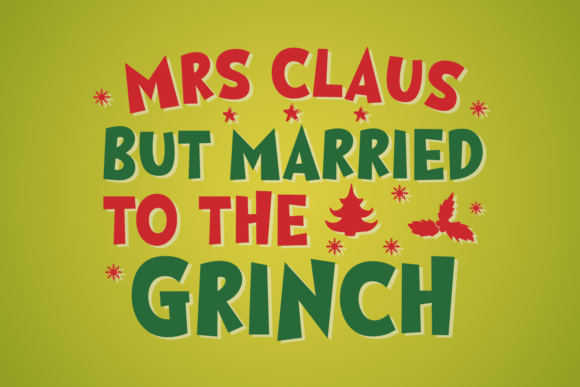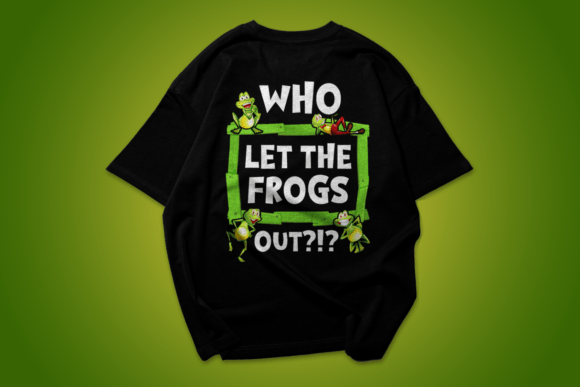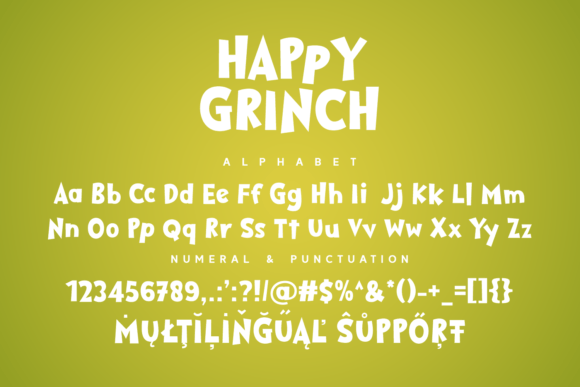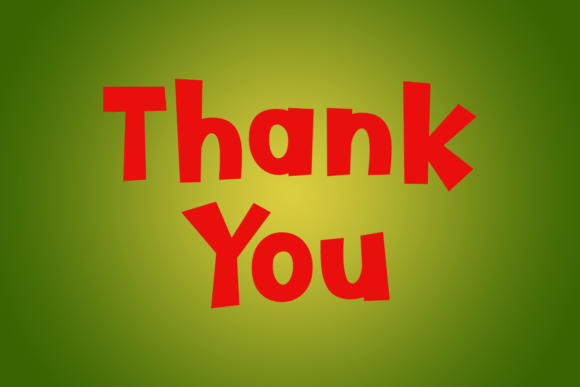
Introduction to Happy Grinch Font
Happy Grinch is a joyful display font that brings cheer to your projects.
With a playful and upbeat style, it adds a touch of happiness to any design Perfect for creating lively headlines, invitations, or anything that needs a dose of festive delight.
Key Features of Happy Grinch Font
Why Choose Happy Grinch Font?